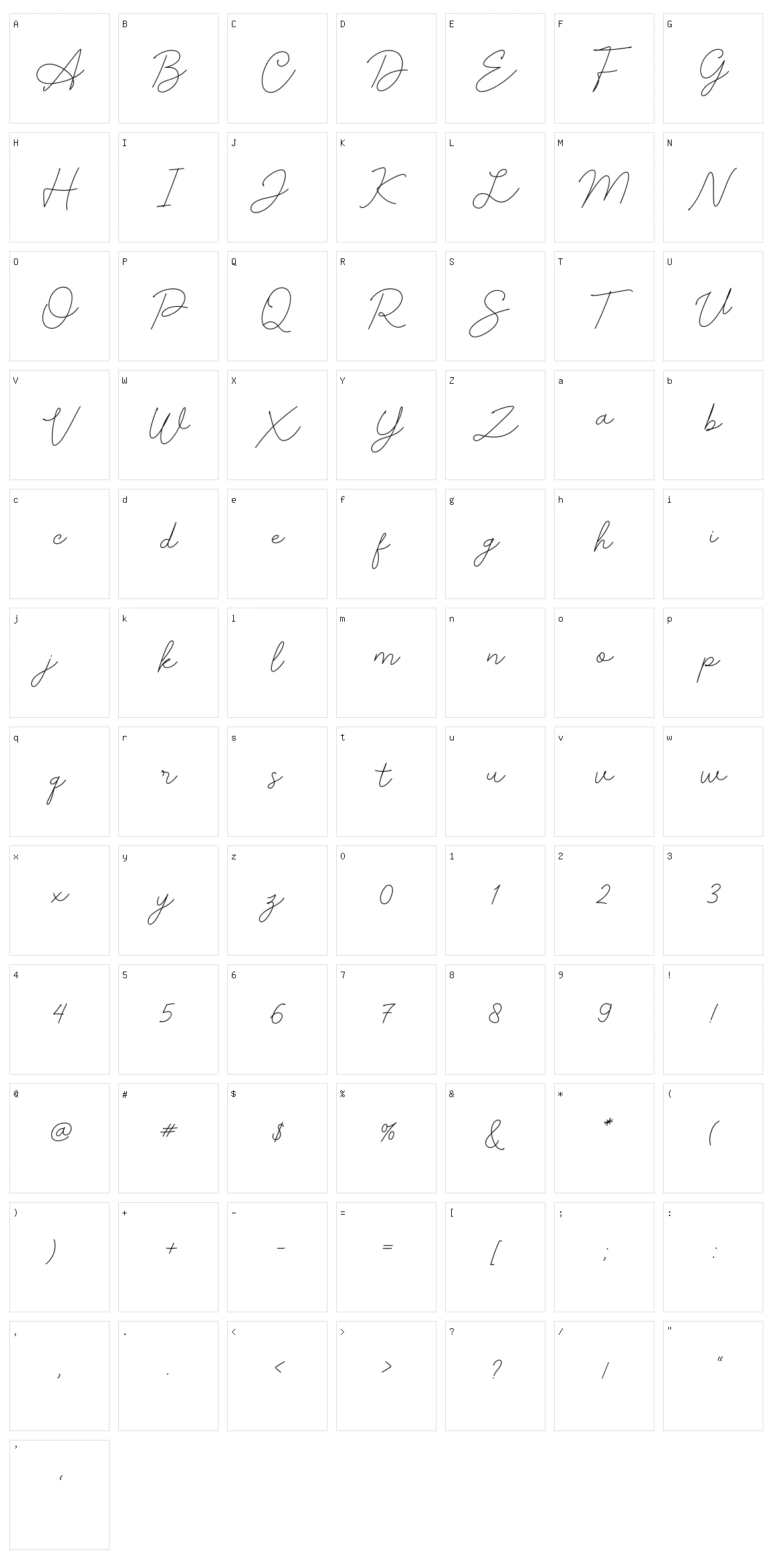
The free font Silly Girls is carefully designed by HIRO std, showcasing a thoughtful balance of creativity and usability and falls under the Script font style. When you download the ZIP file, it contains only 1875.04 KB of font files, making it lightweight and quick to download. Please review the license details below to understand permitted usage and distribution rights. If license information is not available, we recommend using this font for personal projects only or contacting the author directly for commercial usage permissions.